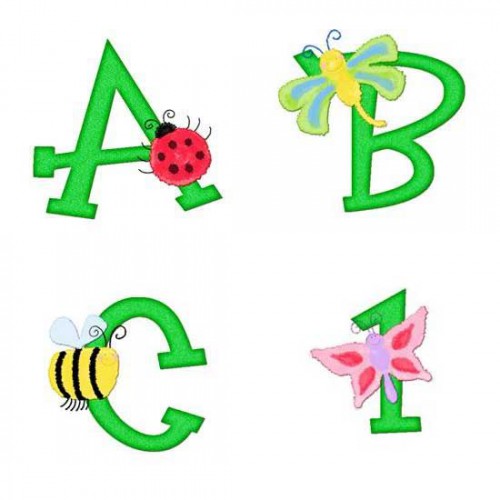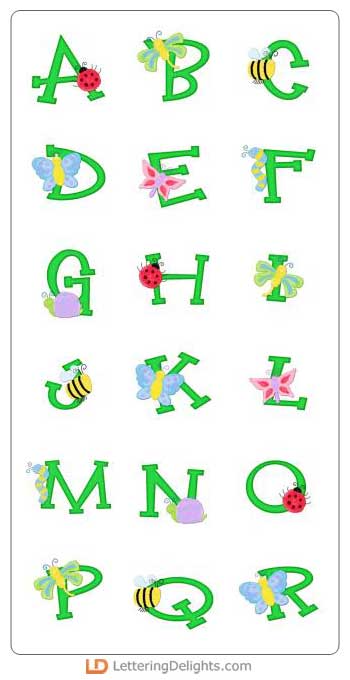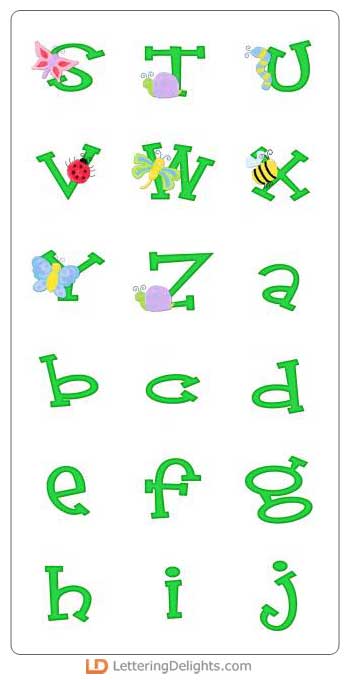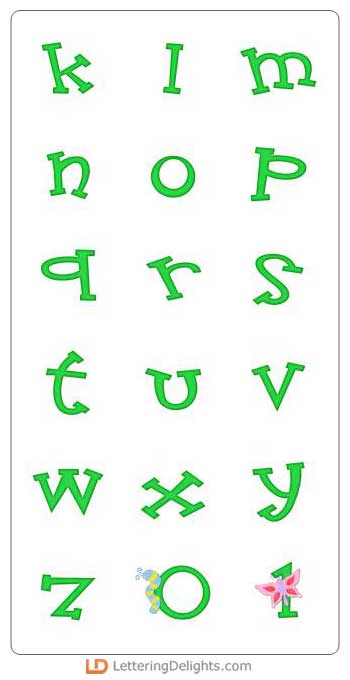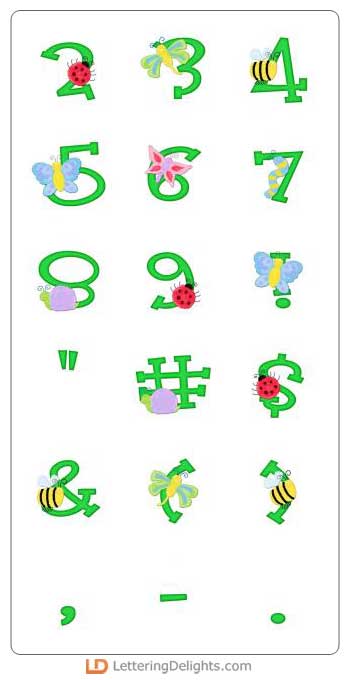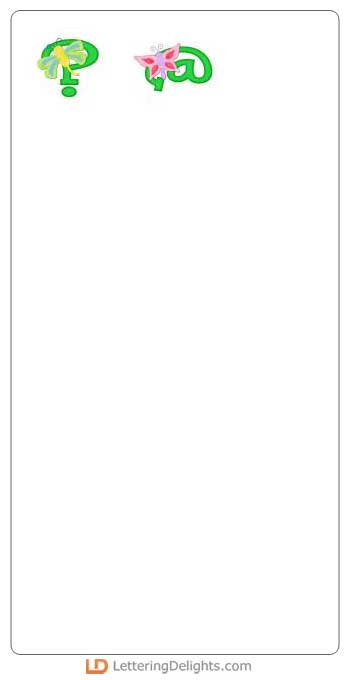
You'll go buggy with this creative alphabet. Your spring and summer time scrapbook pages or handmade cards will come to life using these letters. Use your decoupage skills to personalize picture frames, keepsake boxes, hope chests, plaques, & more.